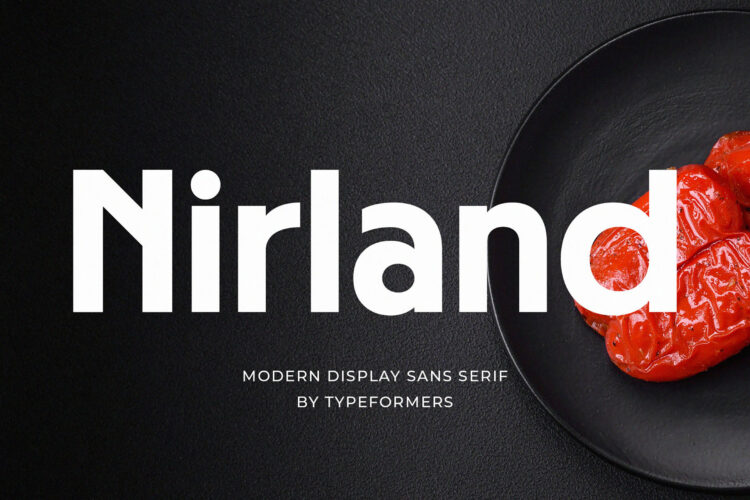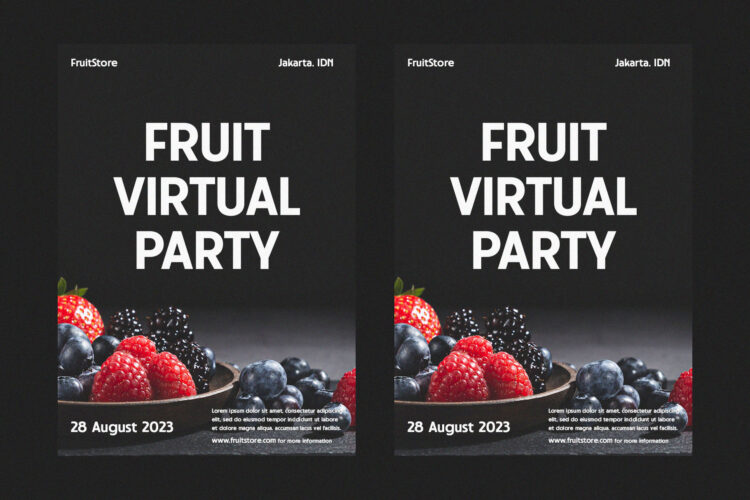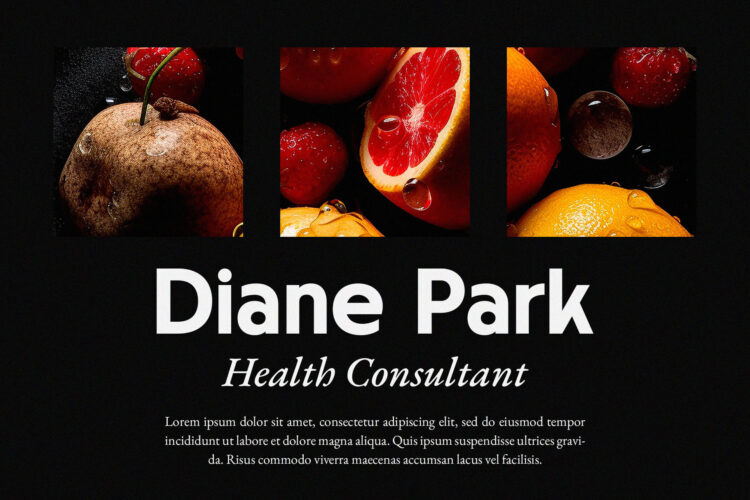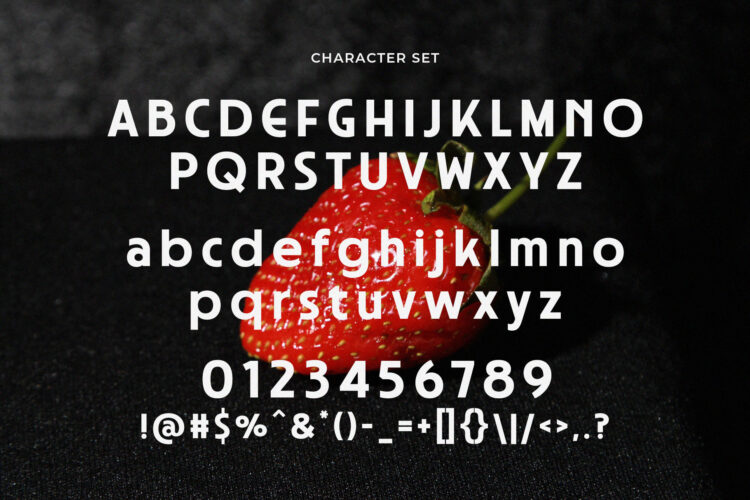
Introducing Nirland – Modern Display Sans Serif.
Nirland is a modern and simple font, best used as a display for headings, logos, branding, magazines, product packaging and invitations.